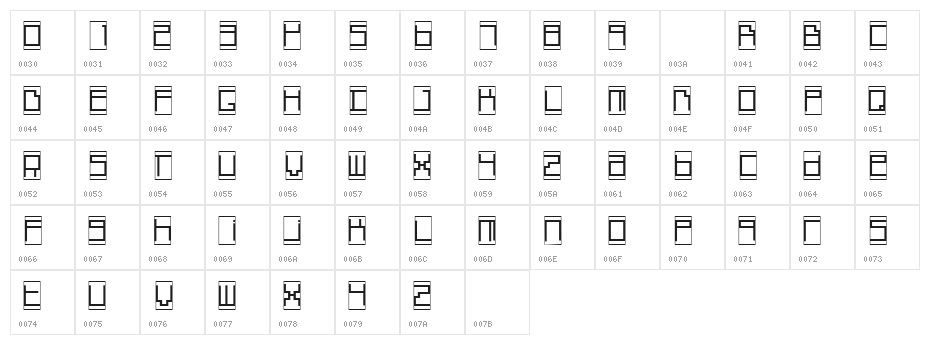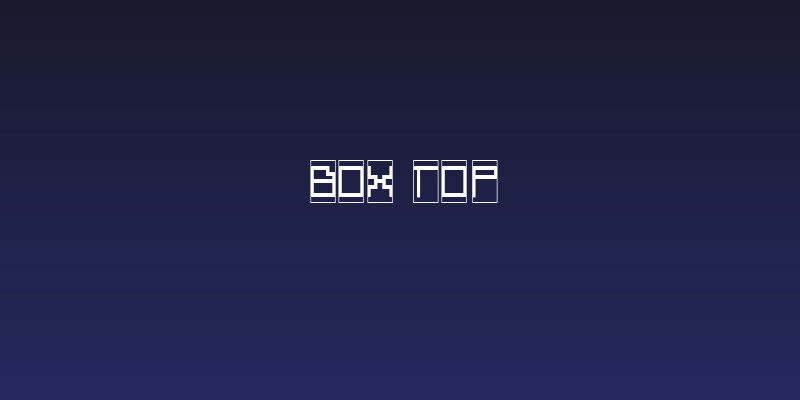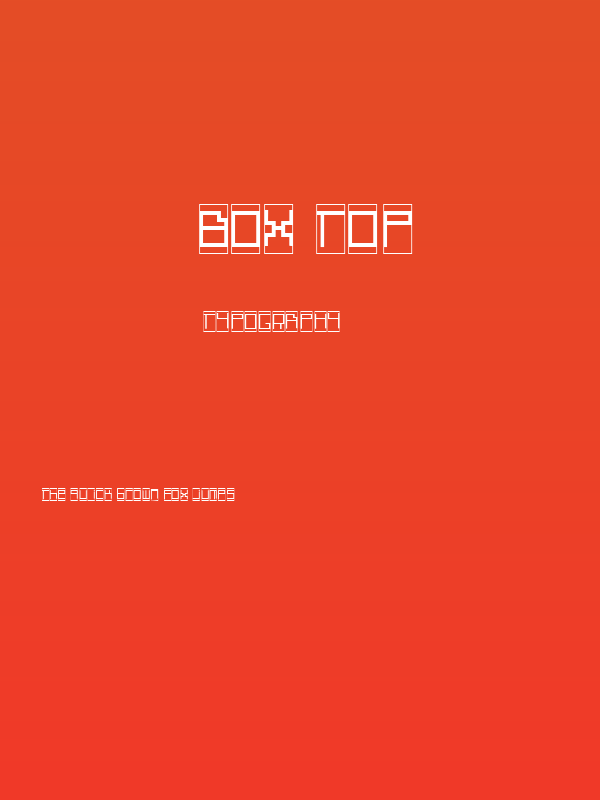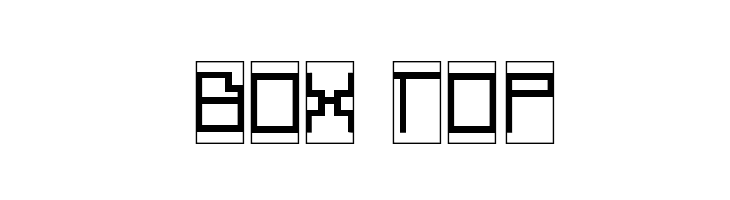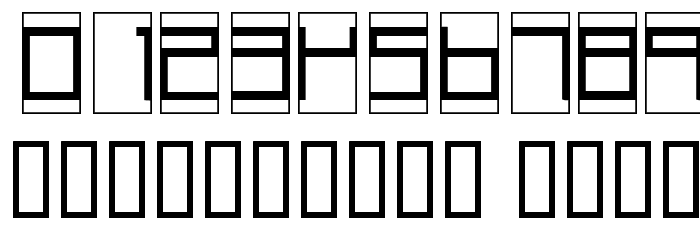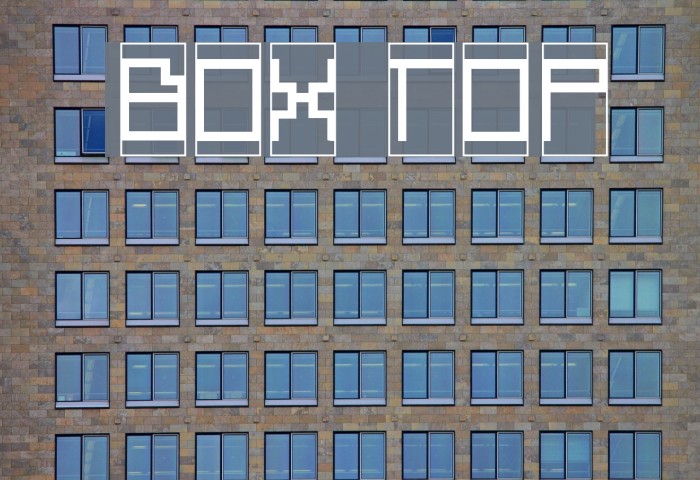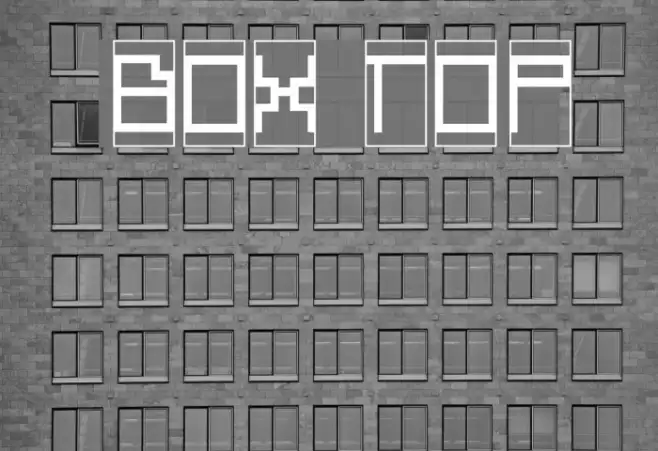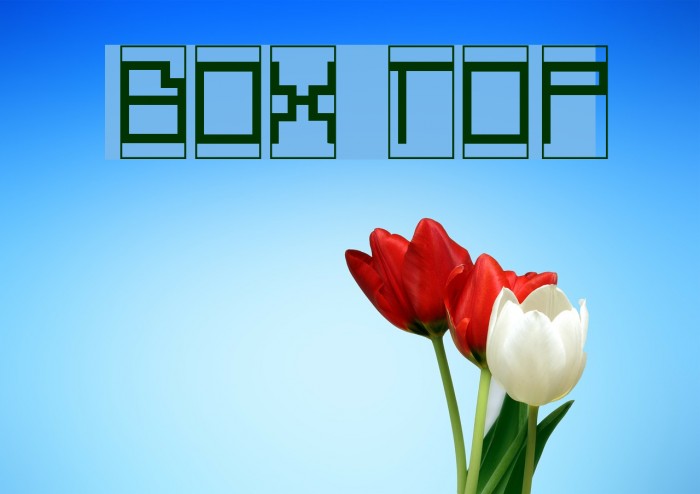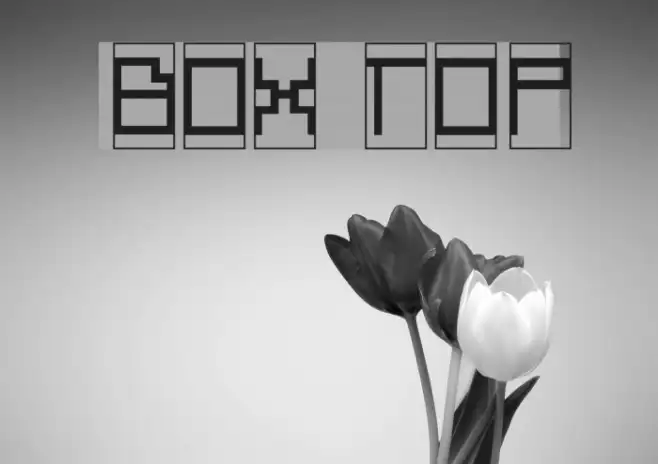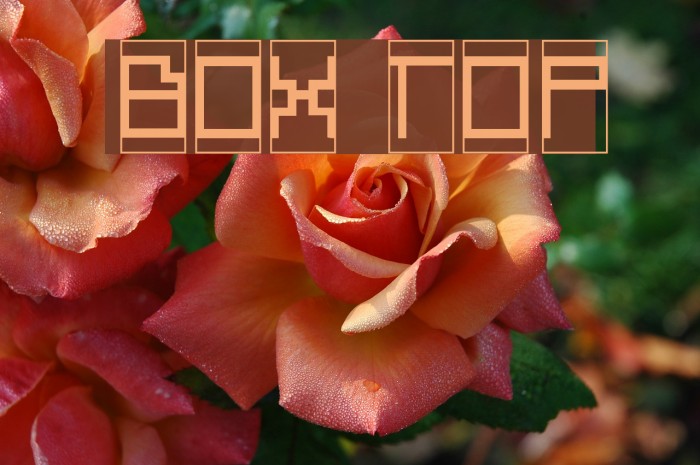
Box Top Font
Box Top Description
This font features a unique, geometric design with each character enclosed in a box-like structure. The letters are constructed with bold, straight lines and sharp angles, giving it a futuristic and digital appearance. The uniformity of the box shapes creates a cohesive and structured look, while the open spaces within the characters add a touch of modernity. The font maintains a consistent height and width across all characters, ensuring a balanced and orderly presentation. Its distinct style makes it stand out, ideal for projects that require a modern and tech-inspired aesthetic.
| Use Case | Logos, Headlines, Posters |
| Proposed Projects | Ideal for tech-related branding, digital art, video game interfaces, and modern posters. |